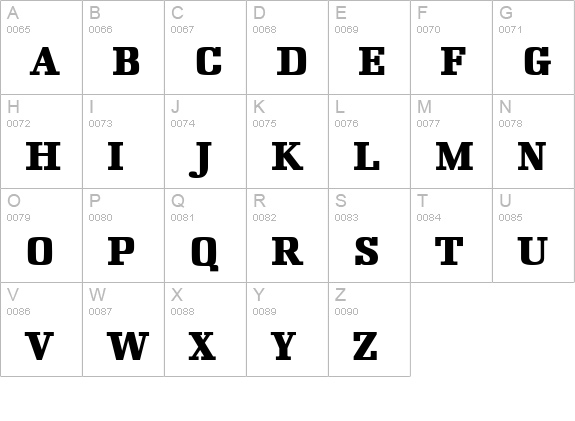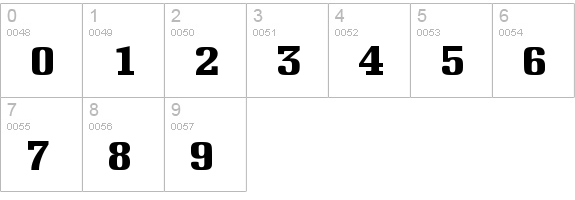
Napoleon Bold Font Details
Napoleon Bold is a strong, high-contrast variant in the Napoleon typeface family \xE2\x80\x94 well suited to headlines, attention-grabbing titles, and strong calls-to-action.
Napoleon Bold font is a striking and powerful typeface that exudes confidence and authority. With its bold and commanding appearance, this font is perfect for making a bold statement in your designs. Whether you are creating posters, banners, or logos, Napoleon Bold font will ensure that your message is seen loud and clear. What makes Napoleon Bold font even more appealing is that it is available for free download at FontsMarket.com. This means that you can easily access this impressive font and use it in your projects without any cost. Don't miss out on the opportunity to enhance your designs with the bold and impactful Napoleon Bold font – download it for free today!